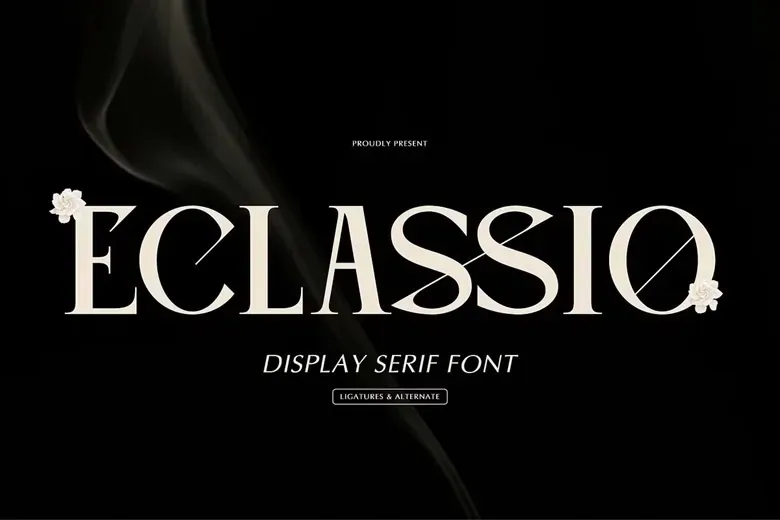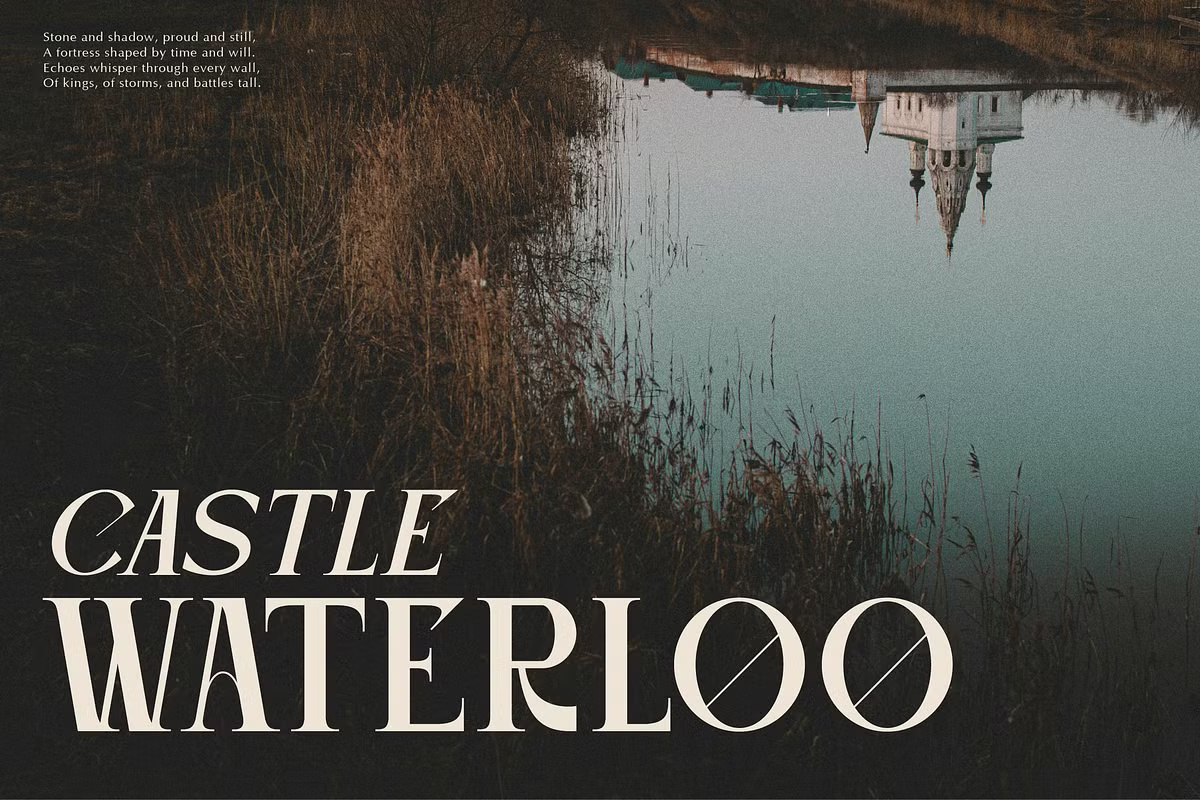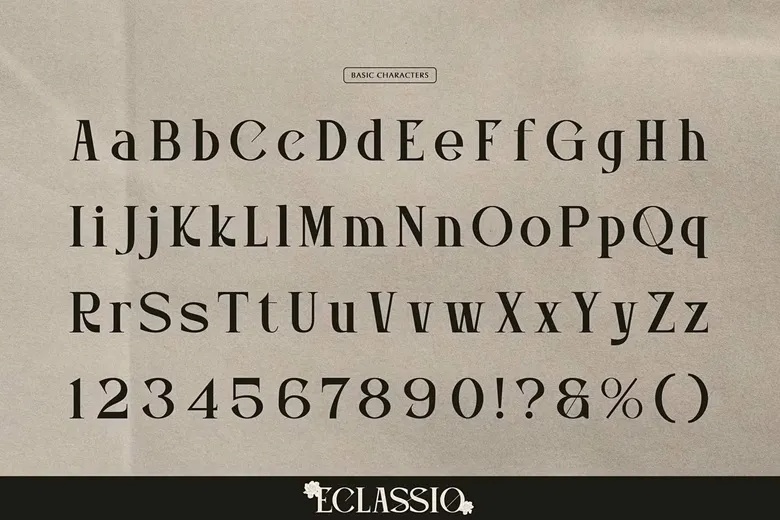
Eclassio Font
Eclassio is an elegant serif typeface from Gracetypestudio, perfect for a wide range of creative projects. Its refined style makes it ideal for logos, branding, homeware designs, product packaging, mugs, quotes, posters, shopping bags, t-shirts, book covers, business cards, invitations, greeting cards, labels, special events, and many more.
Eclassio Serif Font